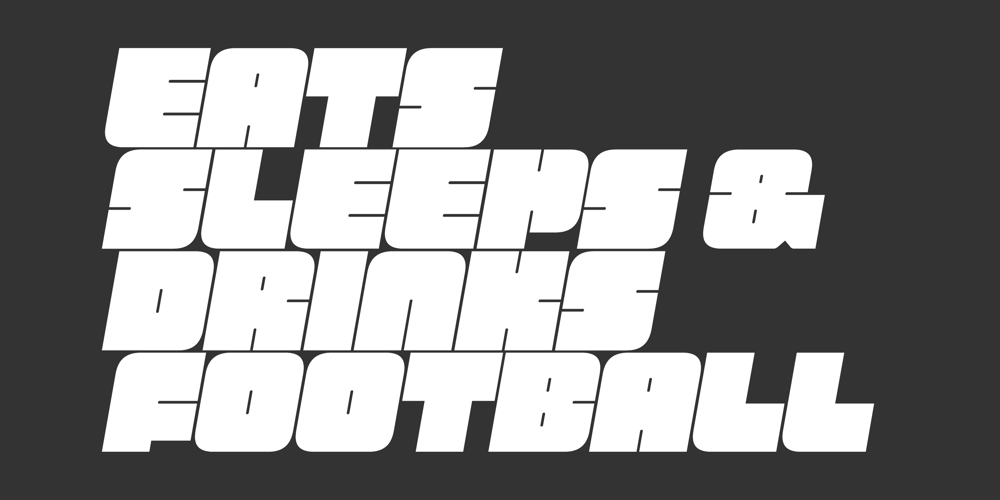
FS Pele Font Family was designed by Jason Smith, Phil Garnham and published by Fontsmith. FS Pele contains 4 styles and family package options. IconicConjuring memories of chunky typefaces from the late-60s and early-70s, and named after the world’s greatest footballer of that and probably any other era, FS Pele is one of a set of Fontsmith fonts designed specifically for headlines and other prominent applications.“We wanted to create fonts that could be integral to the design of posters, album covers and magazines,” says Jason Smith.Welcome to FS Pele, iconic, like its namesake (though, perhaps, a little less nimble).Big Pele, little PeleThere was only one Pele. But there are two sizes of FS Pele. FS Pele One, with the finer counters and details, adds considerable weight and style at large sizes, especially in big block headlines on posters.FS Pele Two’s thicker “slots” make it a better choice for smaller-sized text.A load of blocksFS Pele began as an exercise by Phil Garnham in turning squares into legible letters, via the least means necessary. The idea extended his ideas about logo-making, and the search for a stamp-like brand mark that lends authority, stability and instant identification.“The thought that the type was a 2D/3D jigsaw of slotted, architectural pieces was almost an after-thought. I wanted to create a strong, stacking, block aesthetic for the most contemporary poster design.“At the time there were a lot of designers creating their own versions of the same thing but I wanted to take the blocker forms to the next step, and infer a more legible text without sacrificing the idea.”